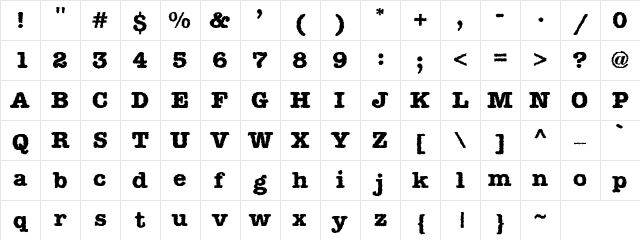
Grunge Amtype Bold Regular
Design Context for Grunge Amtype Bold
Grunge Amtype Bold embraces imperfection - its rough, textured character adds raw authenticity to designs that want to feel lived-in and unconventional.
Pro Tip: Use Grunge Amtype Bold at larger sizes where the texture and irregularity of each letterform can be clearly seen - it loses its character at small sizes.